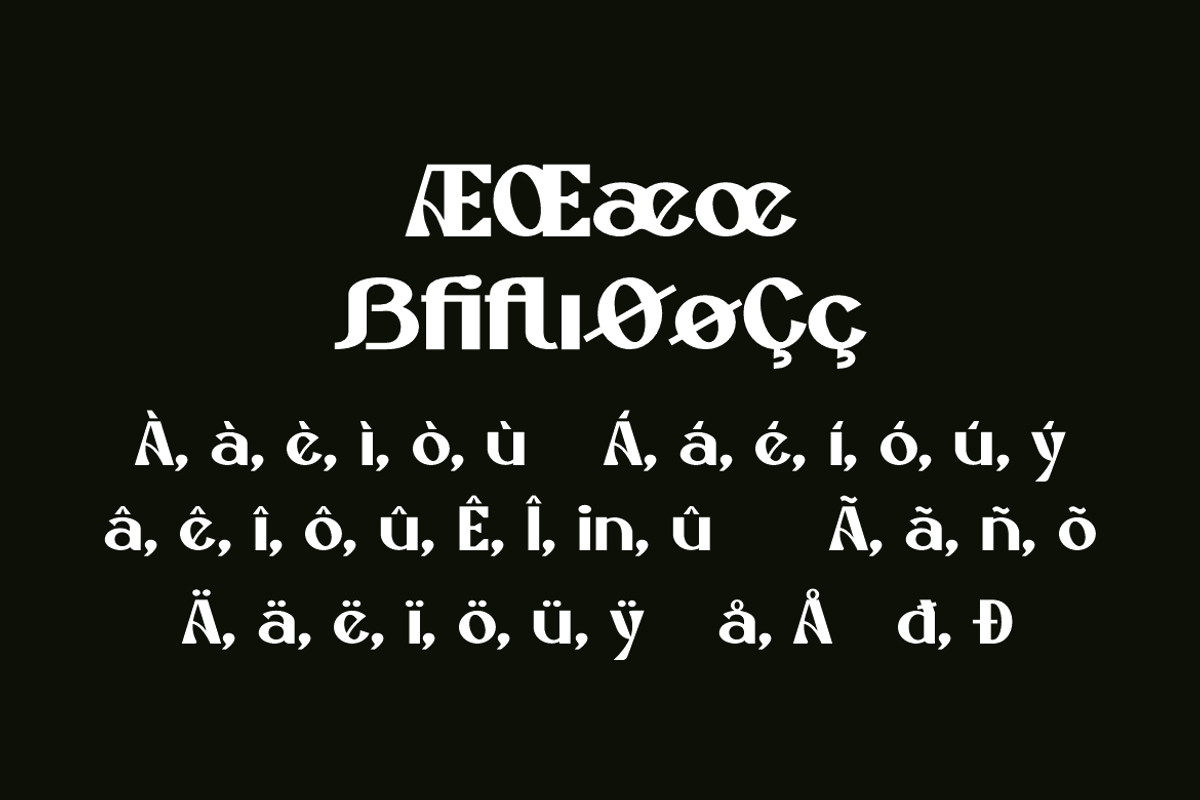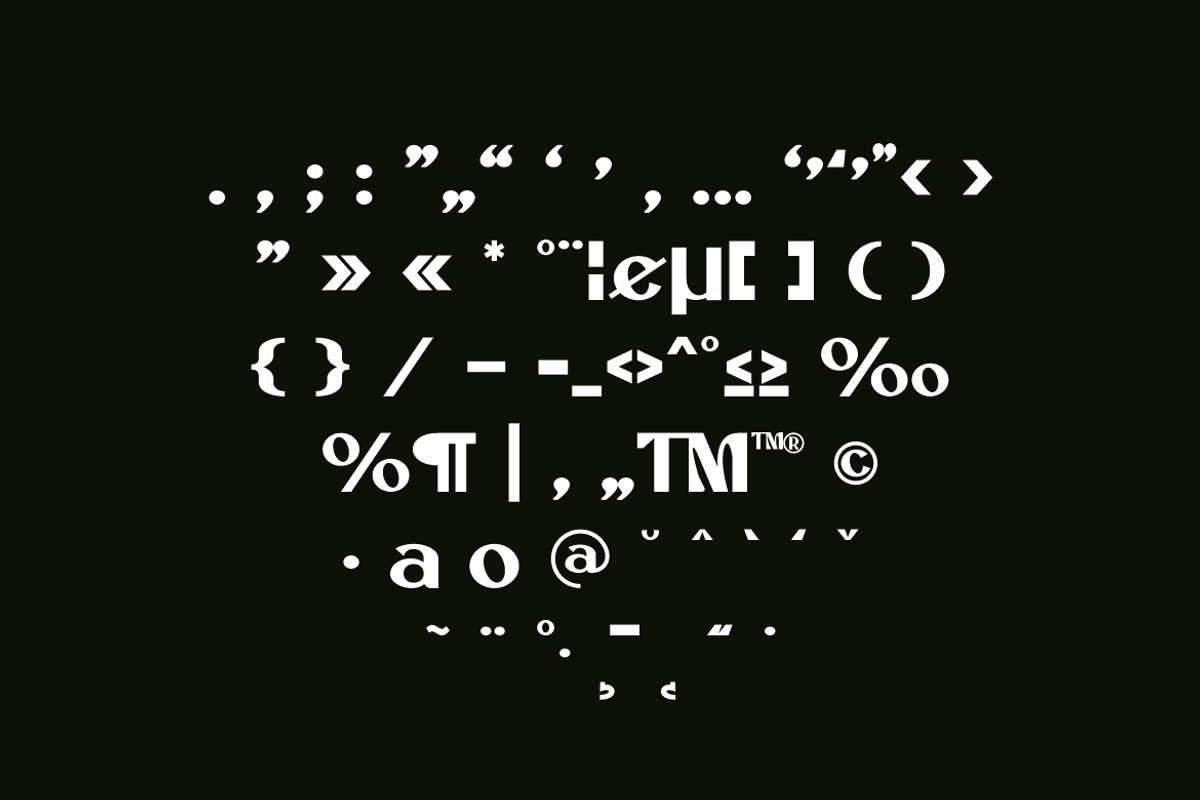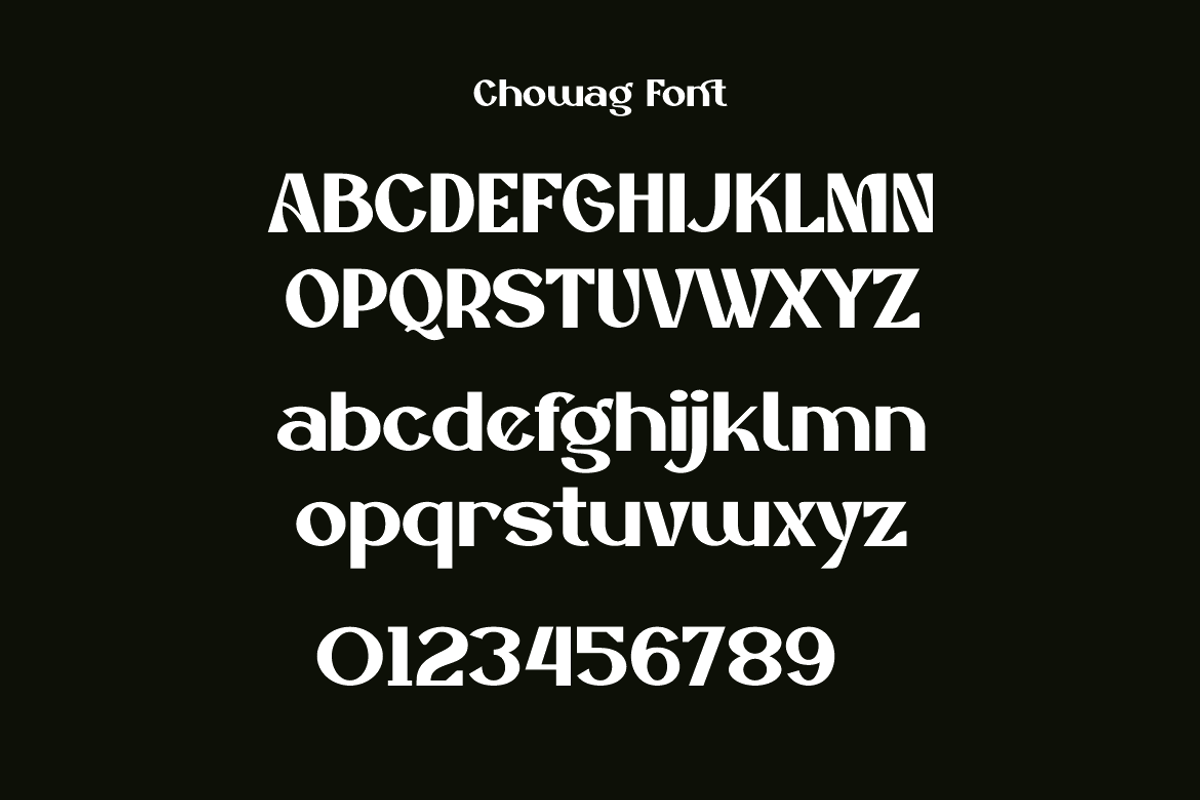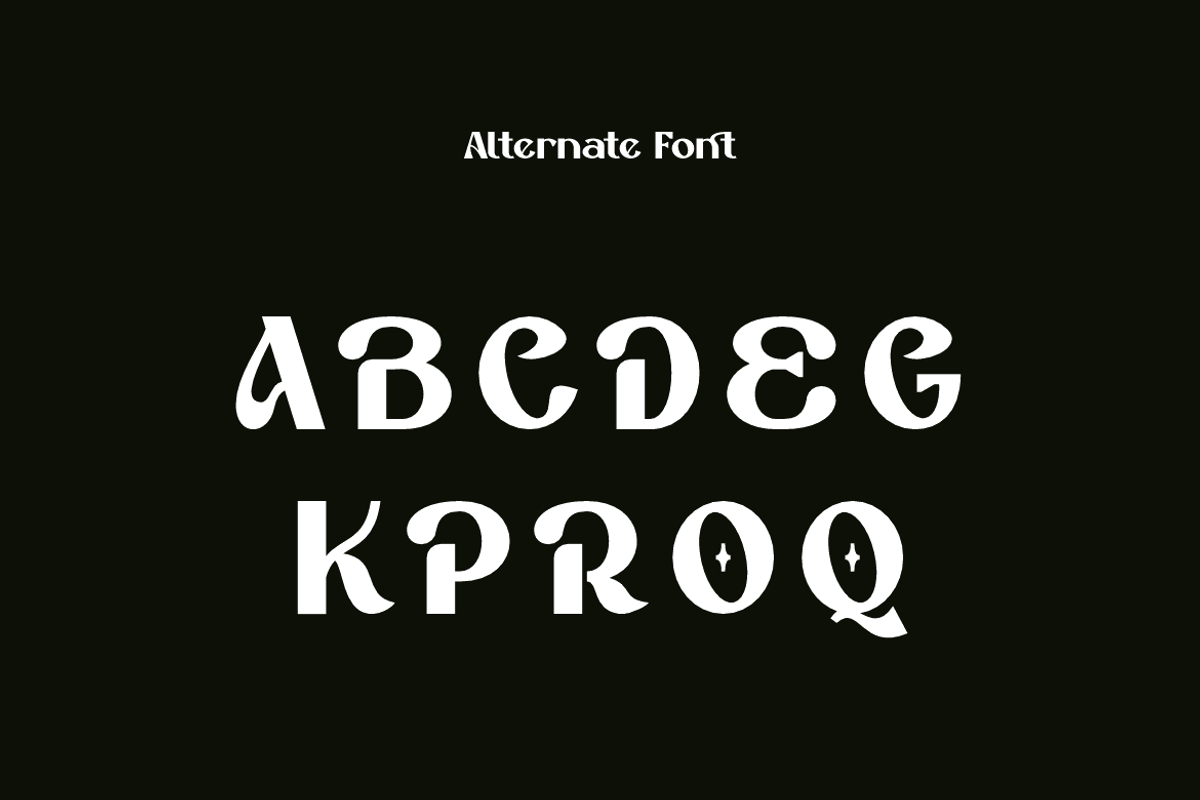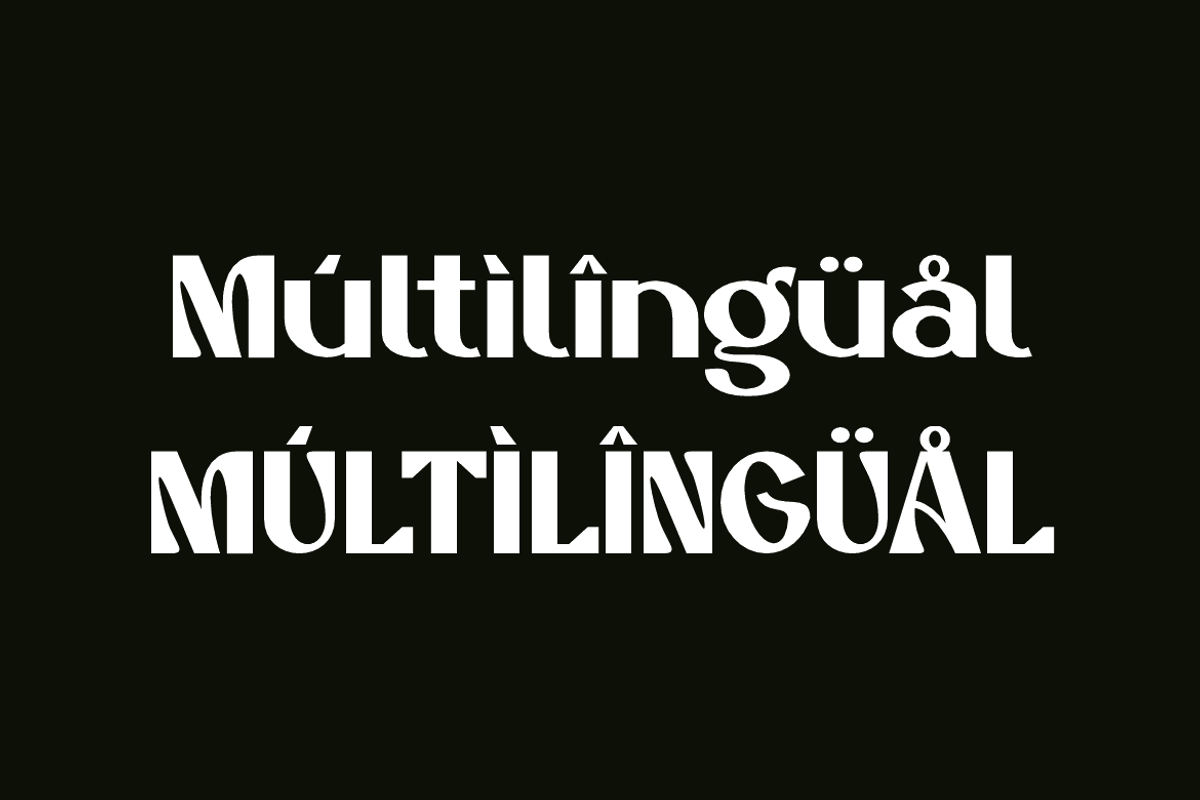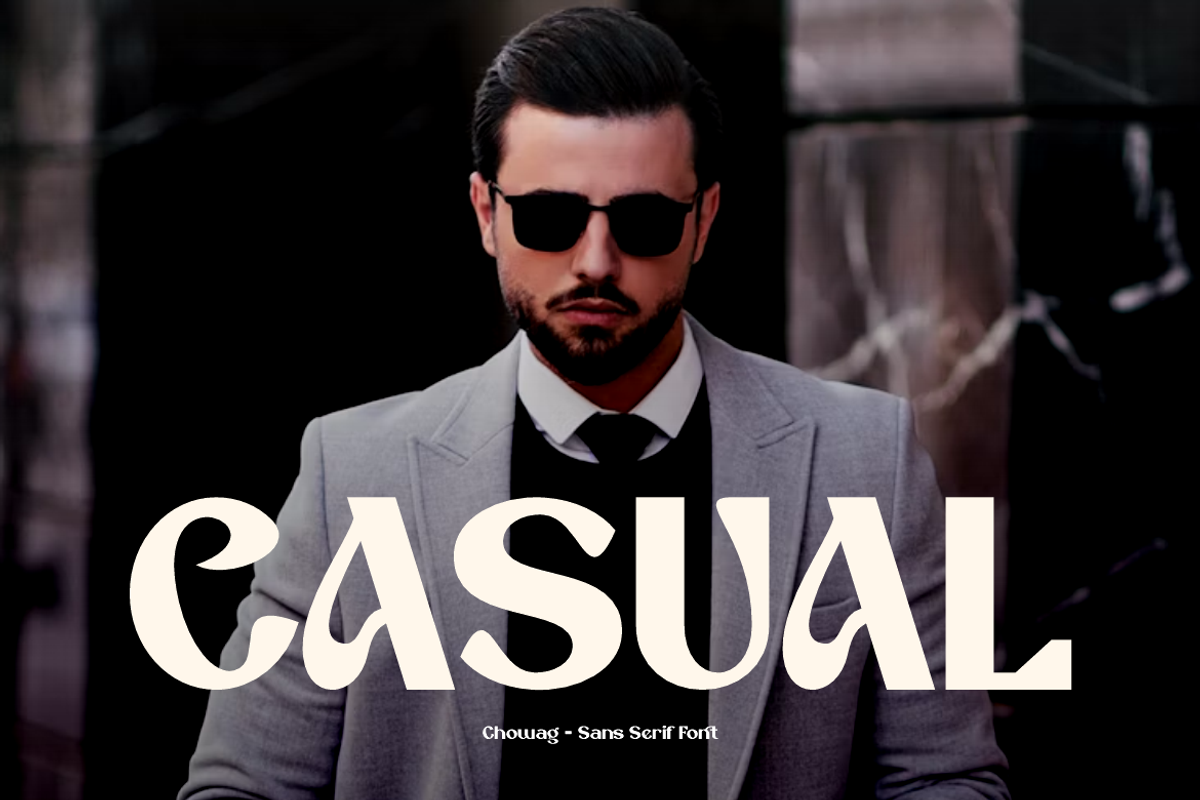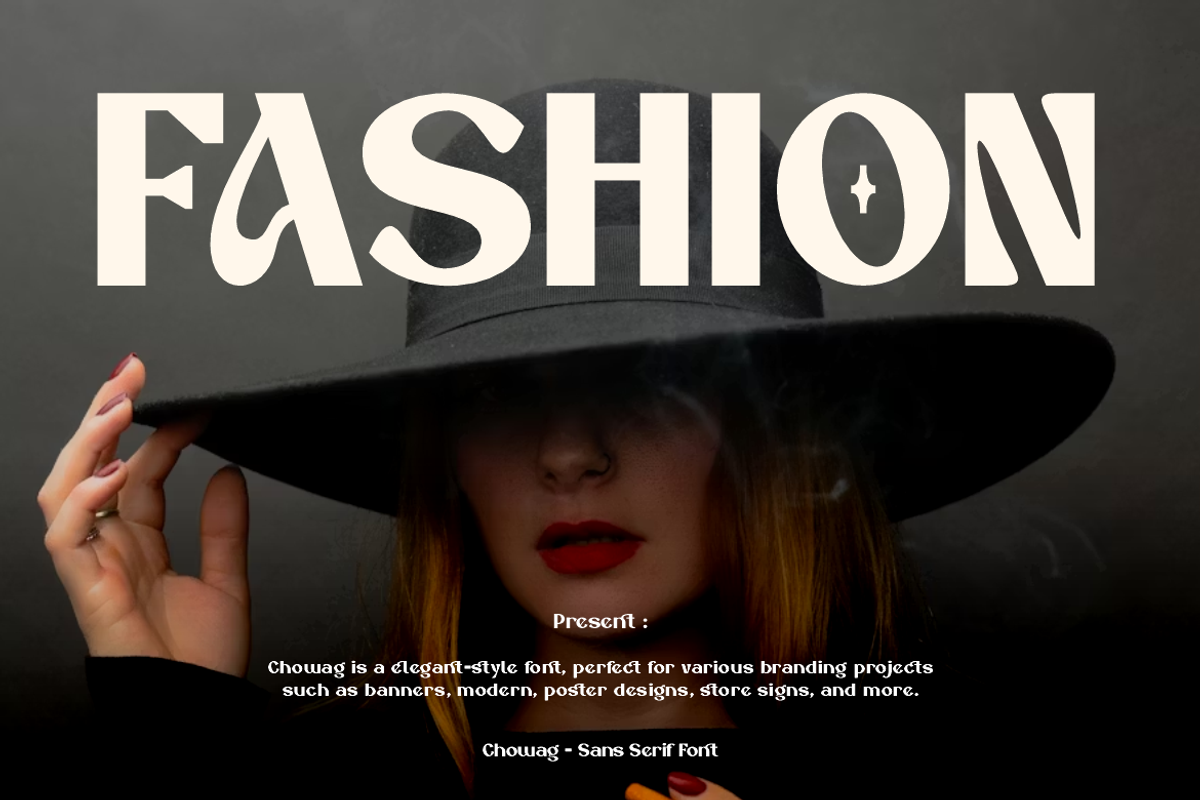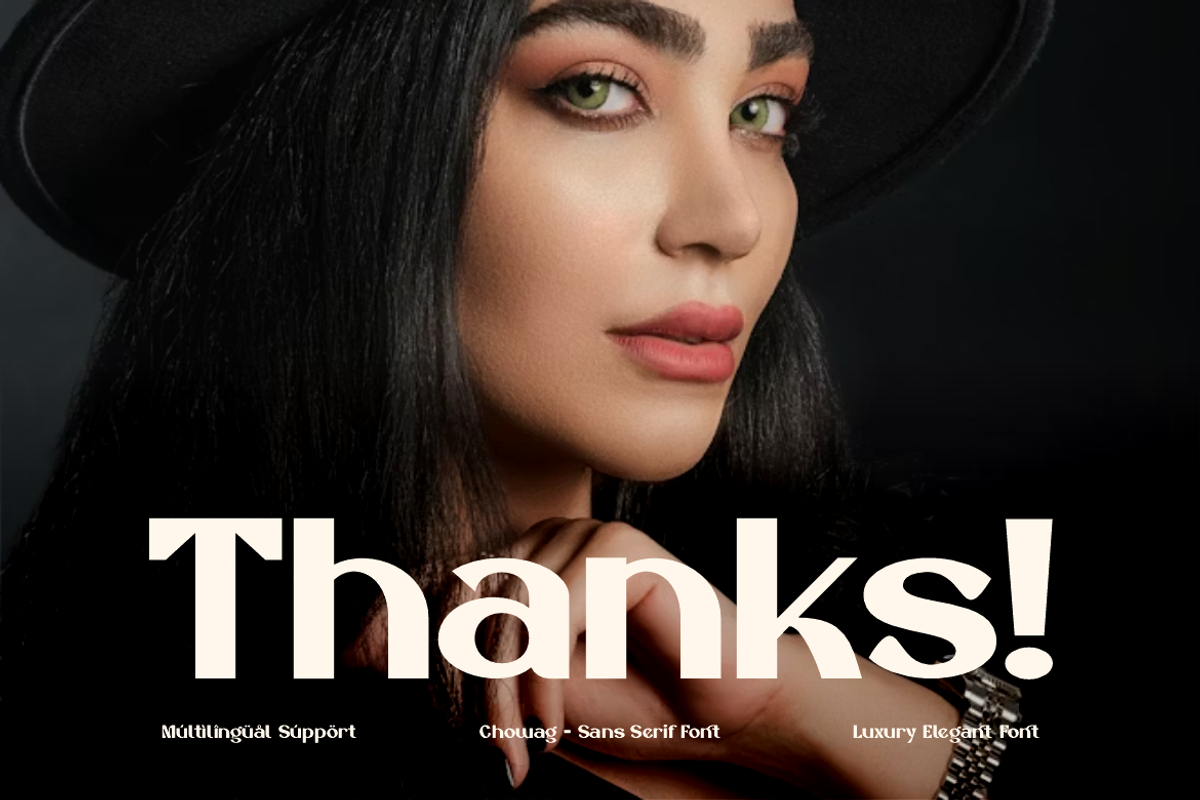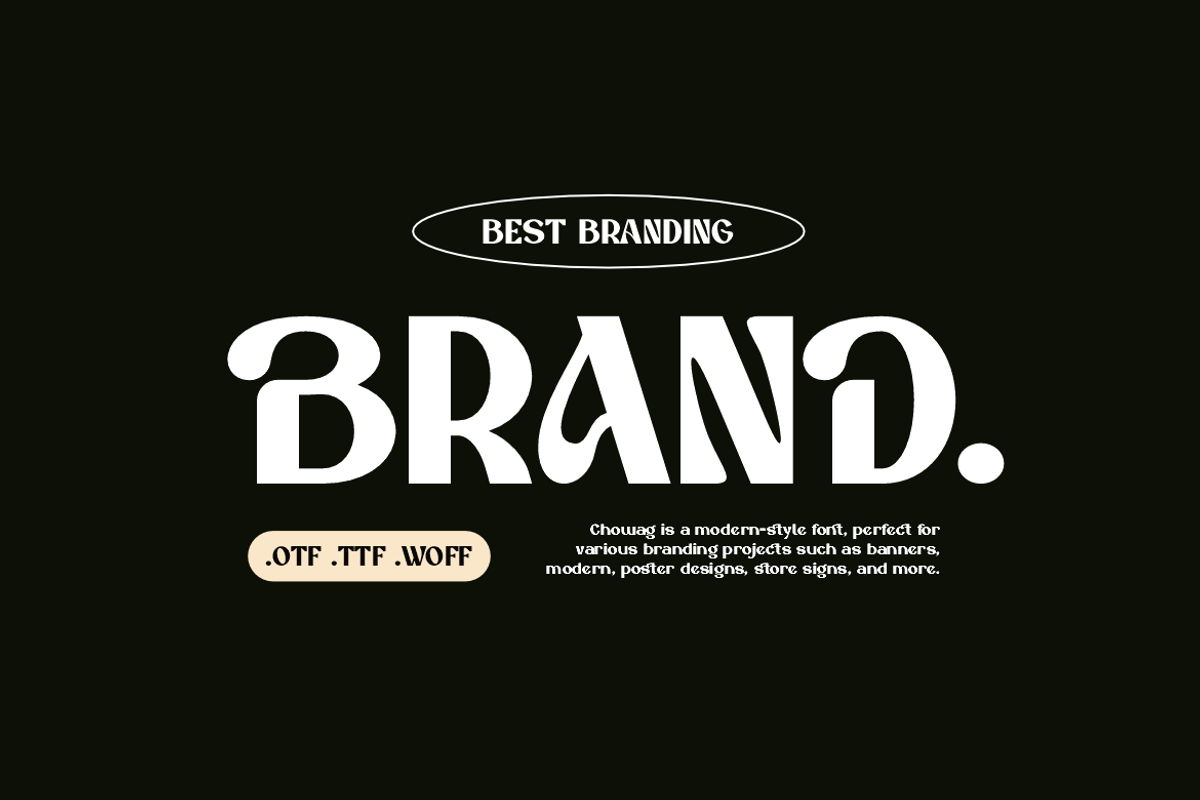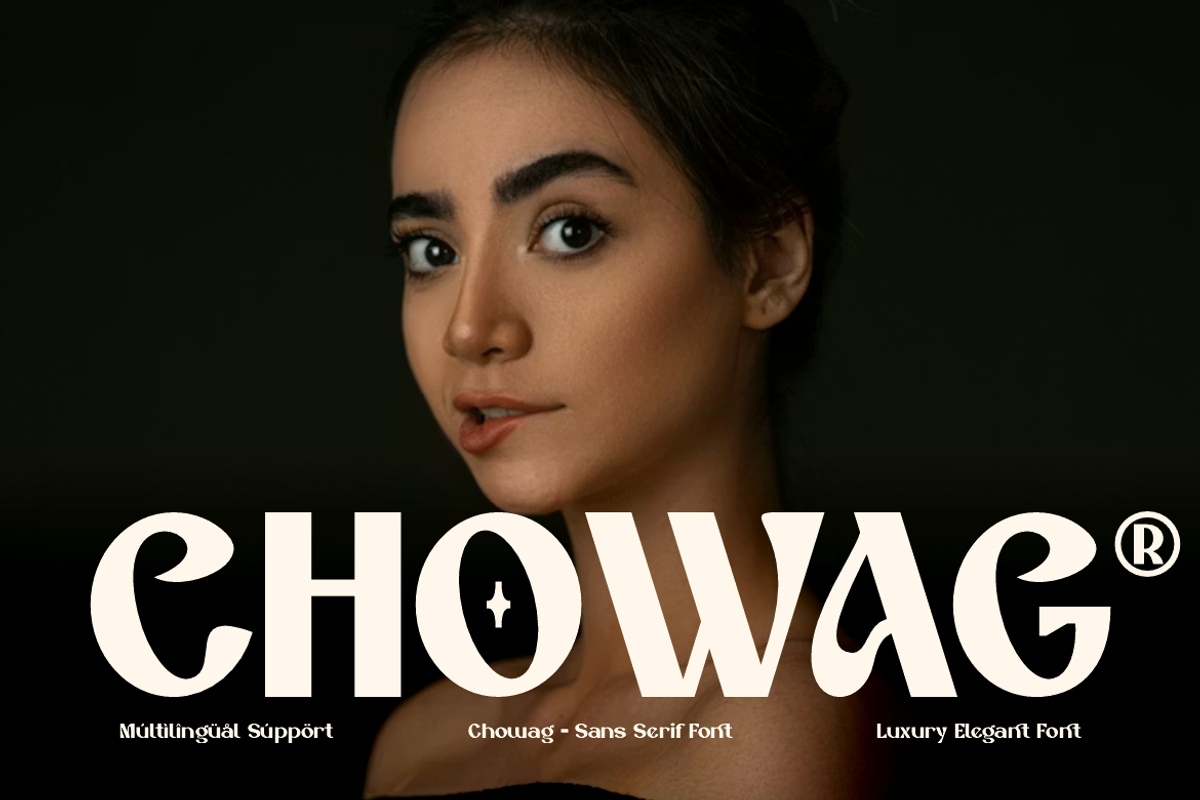
Chowag - Modern Stylish Font
Chowag Font is a modern and authentic display typeface
that suits a variety of design needs. We offer a wide range of themes